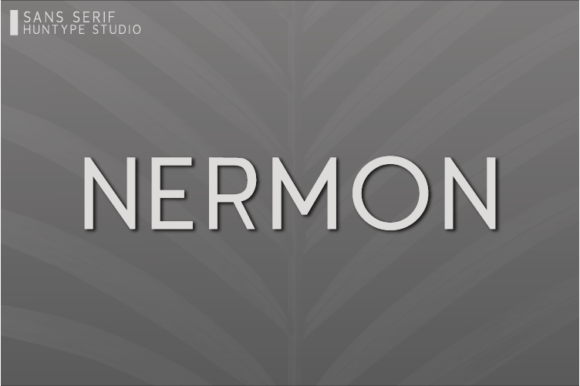
Dive into the world of visual intrigue, where words dance in captivating harmony with Nermon Font, a sans serif masterpiece meticulously crafted by Huntype. Nermon, a typographic gem designed for artistic brilliance, transcends the mundane, taking your designs to breathtaking heights. This font is not just a collection of letters; it's a gateway to a world where creativity knows no bounds.
With its clean and refined strokes, Nermon exudes a charm that's both timeless and contemporary. Its soft, delicate curves add a touch of elegance, while its sharp angles inject a modern edge, making it the perfect choice for a wide range of design projects.
Unleash your creativity and let Nermon guide your vision. Whether you're designing logos that command attention, branding that exudes professionalism, or web headings that captivate and engage, Nermon is your trusted companion, turning your design dreams into reality.
At its core, Nermon is a font of versatility, adapting effortlessly to any design aesthetic. Its understated elegance makes it perfect for minimalist designs, while its inherent strength shines through in bold and dynamic compositions. From delicate wedding invitations to edgy streetwear graphics, Nermon's adaptability knows no limits.
But Nermon's allure extends beyond its aesthetic prowess. It's a font that speaks to the soul, evoking emotions and creating connections. Its gentle curves invite the reader in, creating a sense of warmth and approachability, while its confident angles convey strength and determination.
With Nermon as your design ally, you'll craft designs that resonate with your audience on a deeper level. Your logos will become emblems of distinction, your branding will leave an unforgettable mark, and your web headings will captivate and compel like never before.
So, step into the realm of design brilliance with Nermon Font, and unlock a world of possibilities. Let your creativity soar, knowing that you have a font that will elevate your designs beyond the ordinary. Embrace the power of Nermon and witness the transformation of your creative vision into a masterpiece.